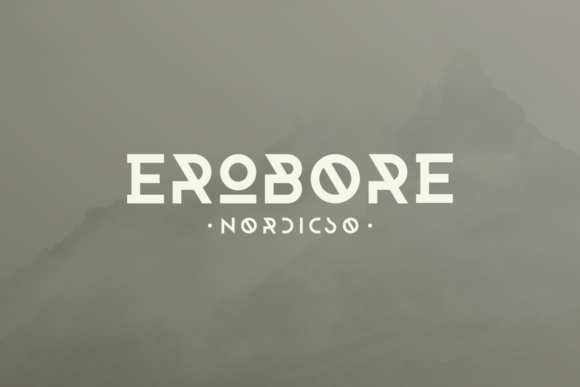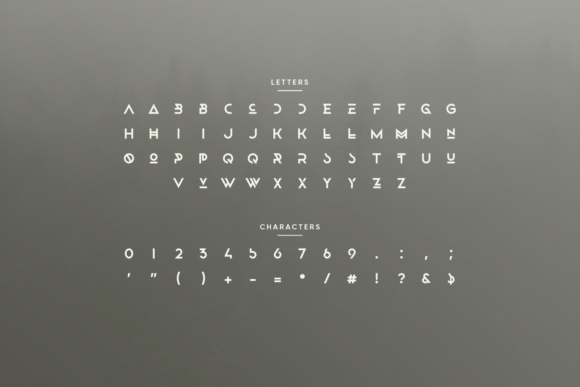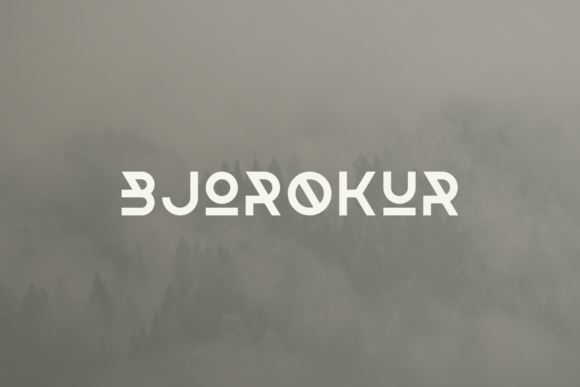
Introduction to Rosorup Font
Have you ever been working on a creative project, and you just can’t seem to find the perfect font to give it that extra oomph? You scroll through design resources, searching for something unique and eye-catching, but it’s hard to find something that truly stands out. That’s where the Rosorup Font comes in – a stunning tribal font that’s sure to add a touch of sophistication to any design.
This all-caps font is reminiscent of the old era, with a geometric typeface that’s perfect for headlines, titles, logos, posters, and flyers. The unique and dynamic upper and lower case characters are inspired by Nordic runes and the glory of the Viking era, making it a valuable resource for designers looking to add a touch of history and culture to their work.
- High-quality design resource ideal for creative projects requiring a modern and elegant look.
- Features a clean and minimalist design, with a unique sans-serif font style that adds a touch of sophistication to any project.
Honest Review: Rosorup Font
As a designer, I’m always on the lookout for high-quality fonts to enhance my creative projects. The Rosorup Font caught my eye, and I decided to put it to the test.
- ✨ High-quality design: The Rosorup Font features a beautiful, elegant design that’s perfect for various creative projects.
- ✨ Versatility: This font is suitable for a wide range of applications, from headlines to body text.
Any limitations:
- ⚠️ Limited font sizes: While the font is high-quality, it seems to perform better at smaller font sizes. At larger sizes, the font can appear pixelated.
Overall, I’m impressed with the Rosorup Font’s design and versatility. While it has some limitations, it’s an excellent resource for designers who want a high-quality font without breaking the bank. With a little experimentation, you can achieve stunning results with this design resource.
Tips for Getting the Most Out of Rosorup Font
Experiment with different font sizes, colors, and styles to create a unique look. Combine the Rosorup Font with other design elements, such as images or graphics, to add depth and visual interest to your project.
Common Use Cases for Rosorup Font
The Rosorup Font is ideal for creative projects such as logos, business cards, and social media graphics. It’s also suitable for presentations, documents, and other design materials that require a touch of elegance and sophistication.
What makes the Rosorup Font a valuable design resource?
The Rosorup Font is a high-quality, modern sans-serif font that’s perfect for a wide range of creative projects, from logos and branding to digital products and print materials. Its transparent background and clean design make it an excellent choice for designers who want a versatile and easy-to-use font.